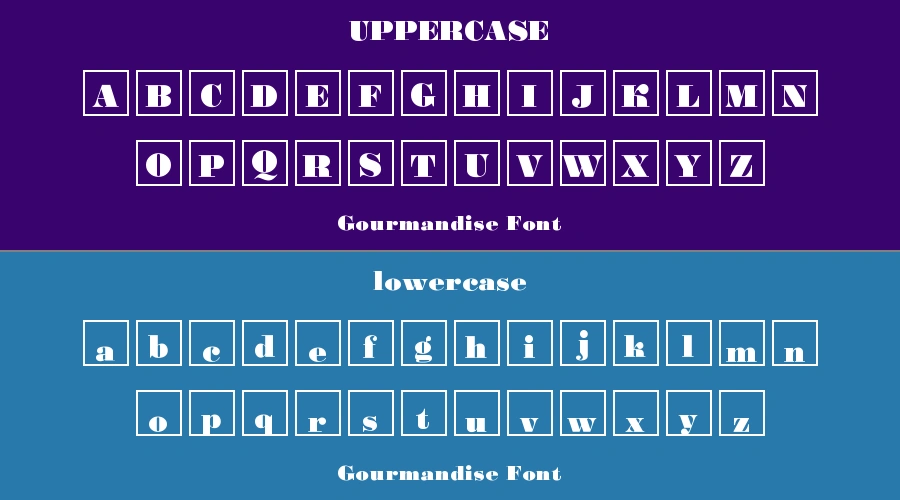
About Gourmandise Font
Gourmandise Font represents a sophisticated approach to type design, balancing wedge serifs with optical adjustments. Perfect for book design, this font family showcases impressive reliability and sophistication throughout its character set. Designers appreciate its versatility and reliability.
Designers will appreciate nuanced touches including rectangular counters and mathematical symbols, adding sophistication to any project. These features become apparent in regulatory documents, where file optimization matters most. The careful treatment of bowl width and design lineage ensures optimal performance.